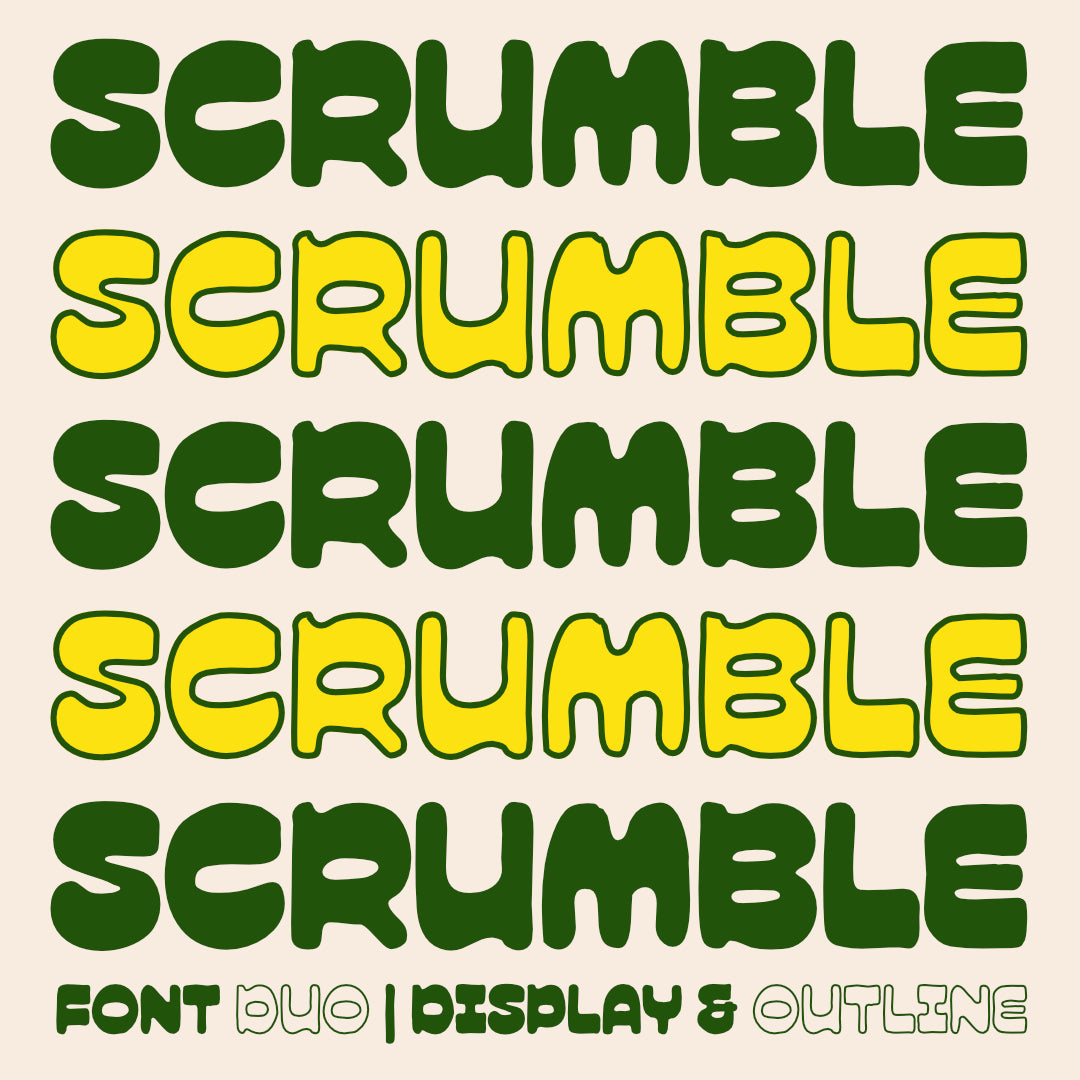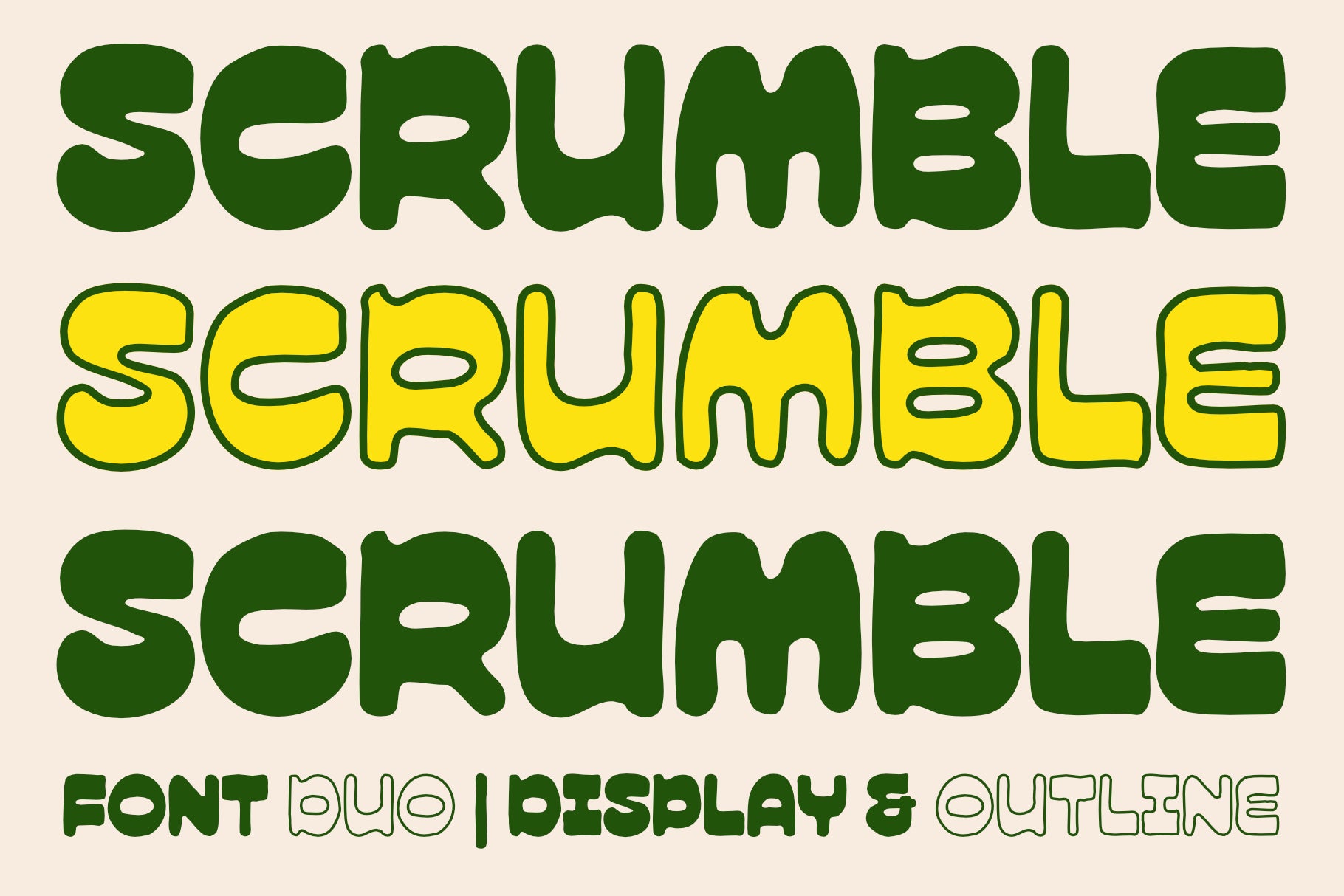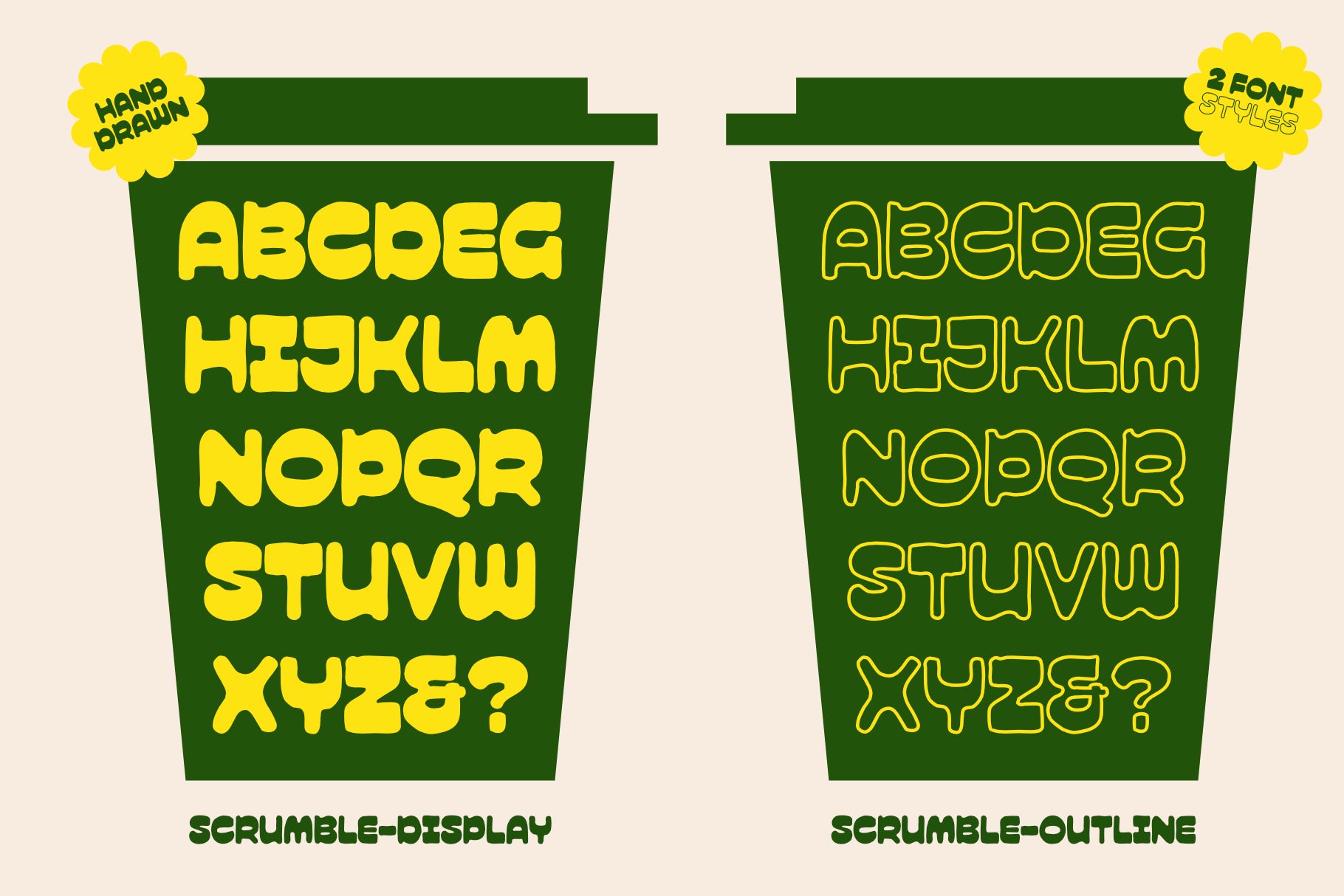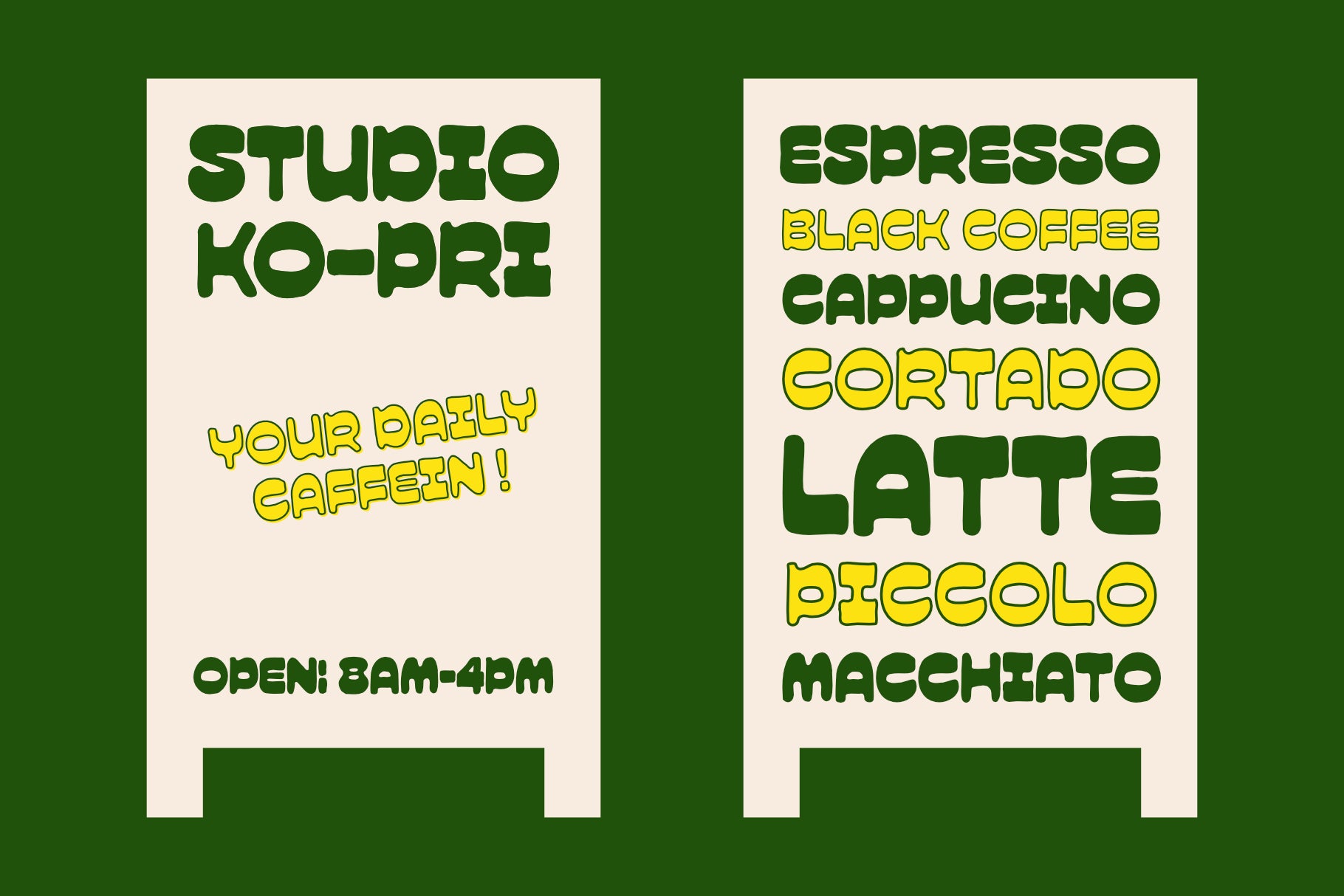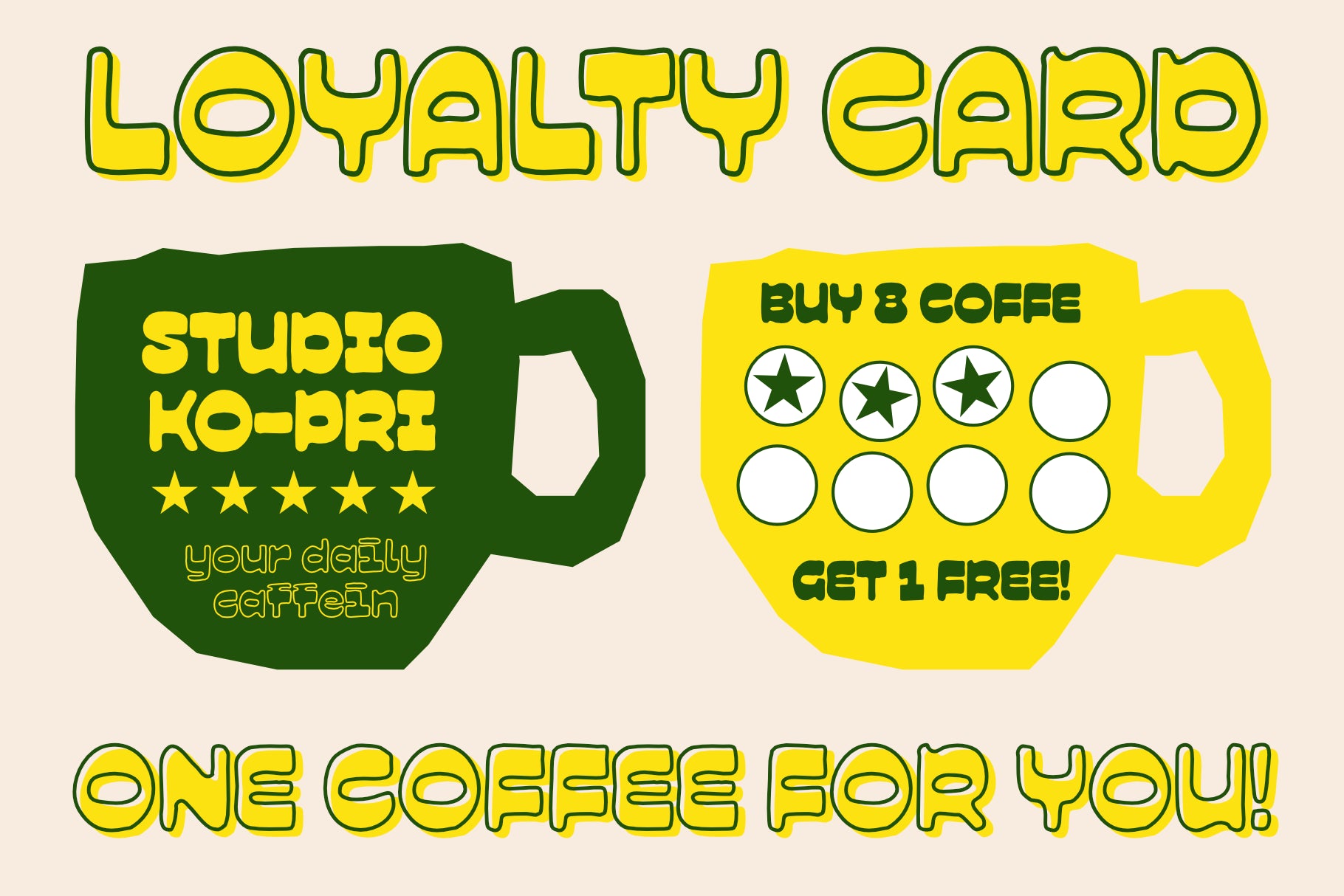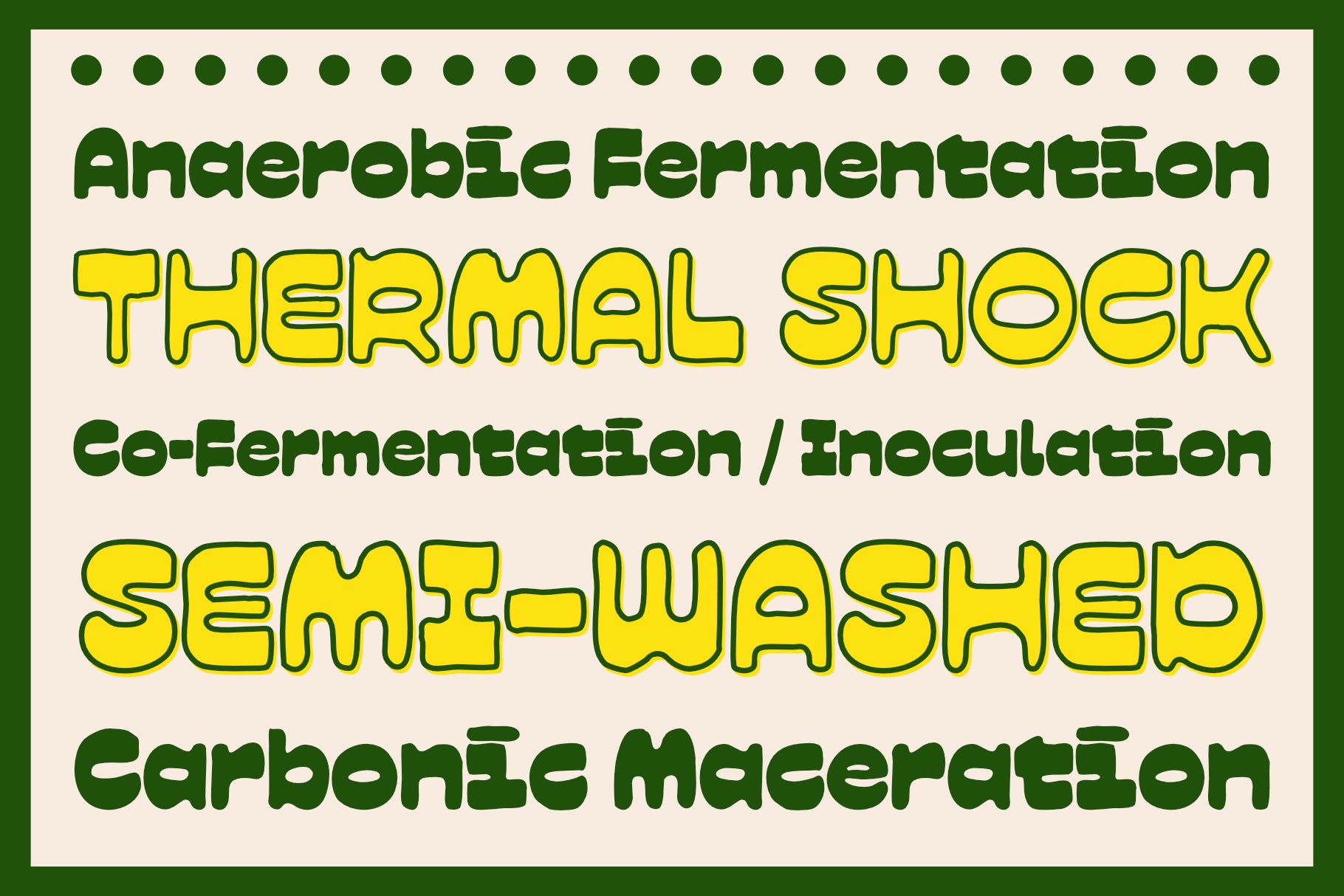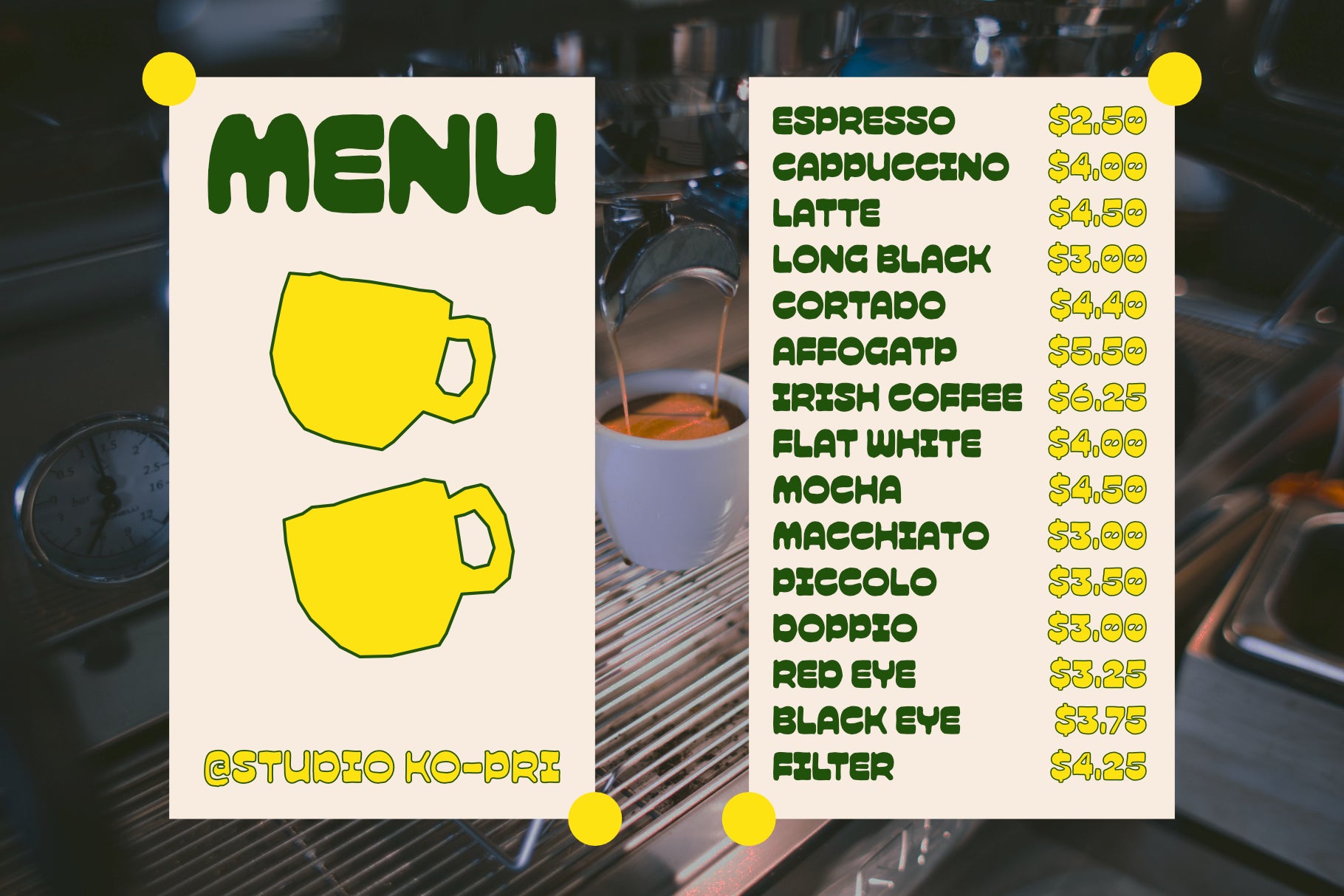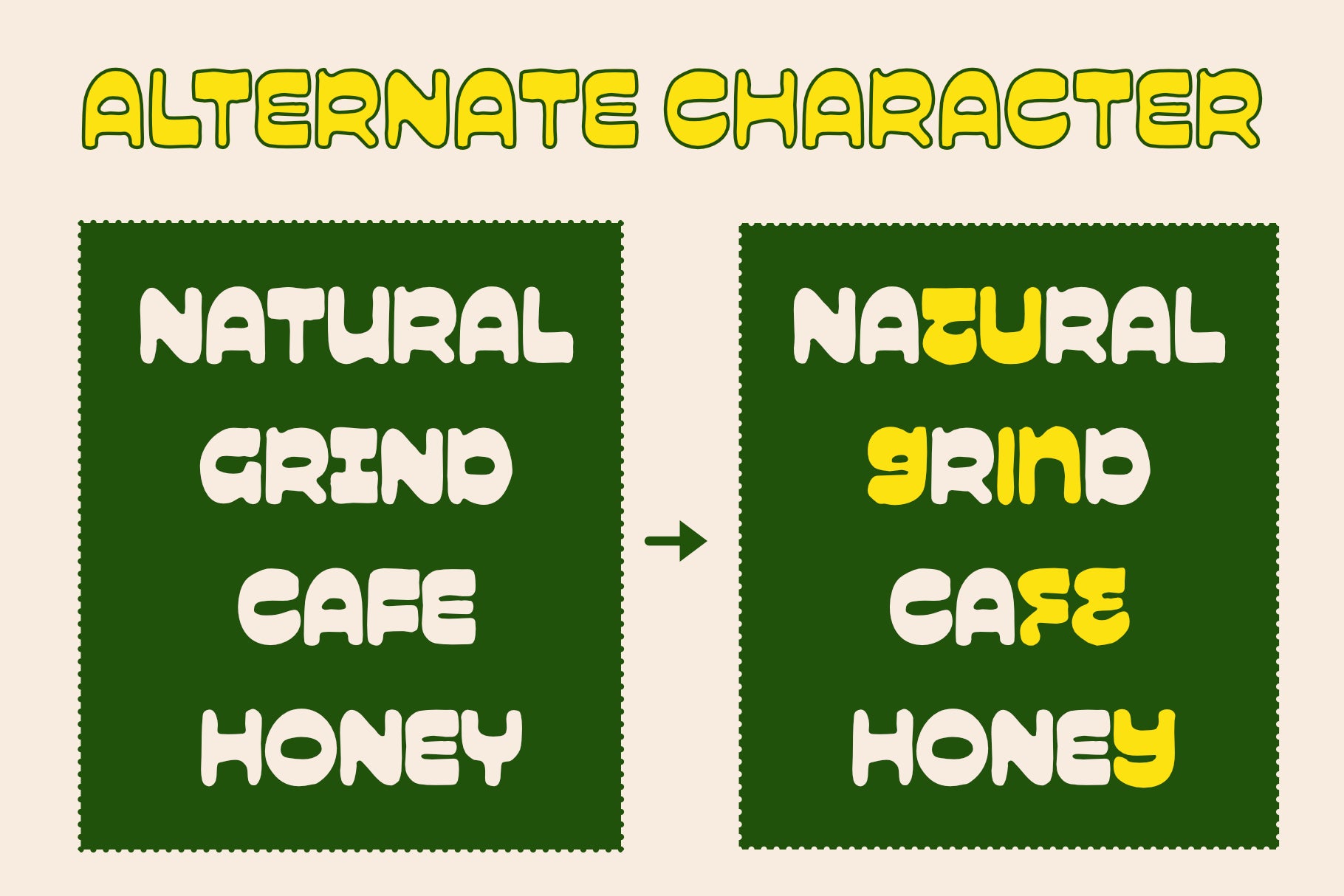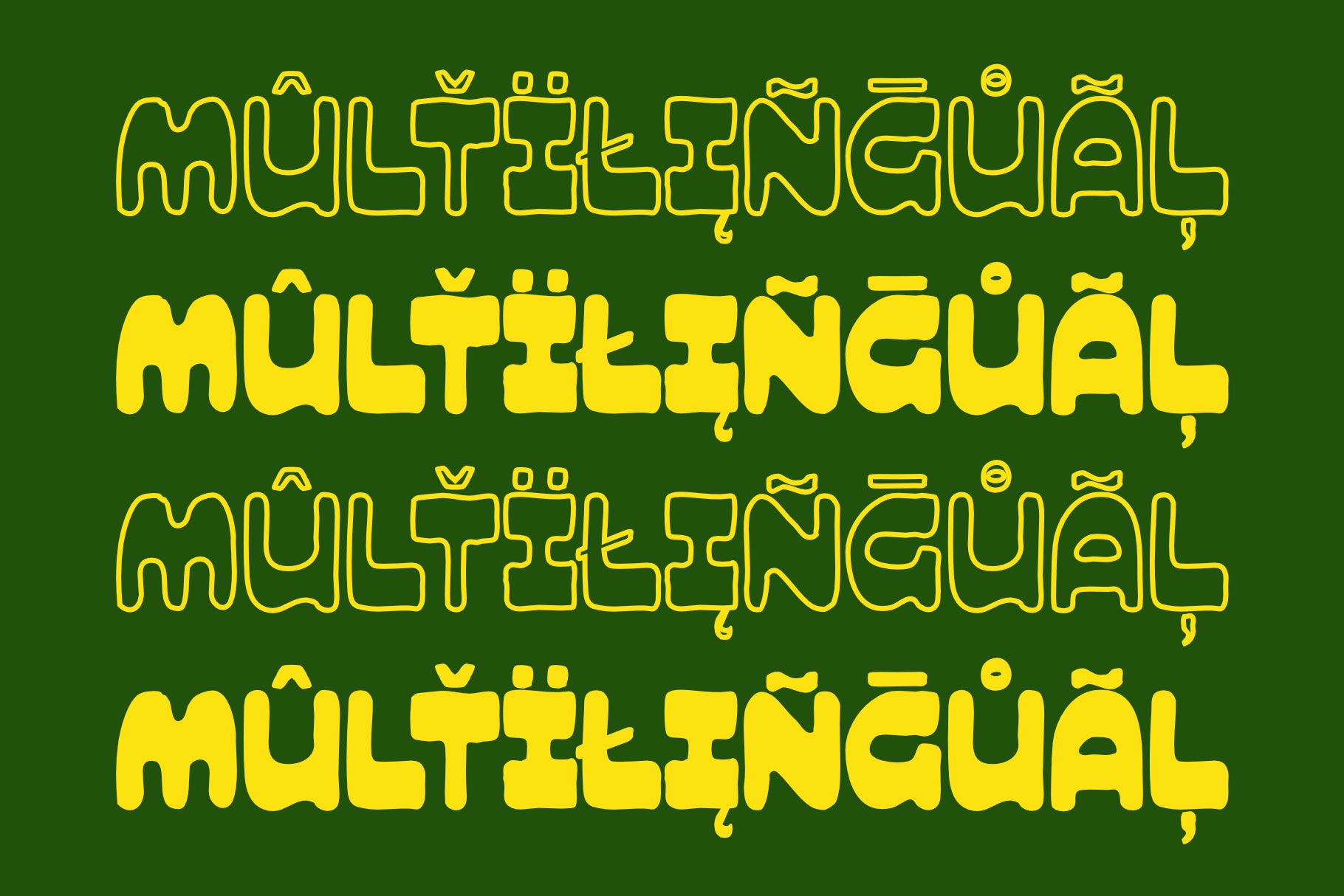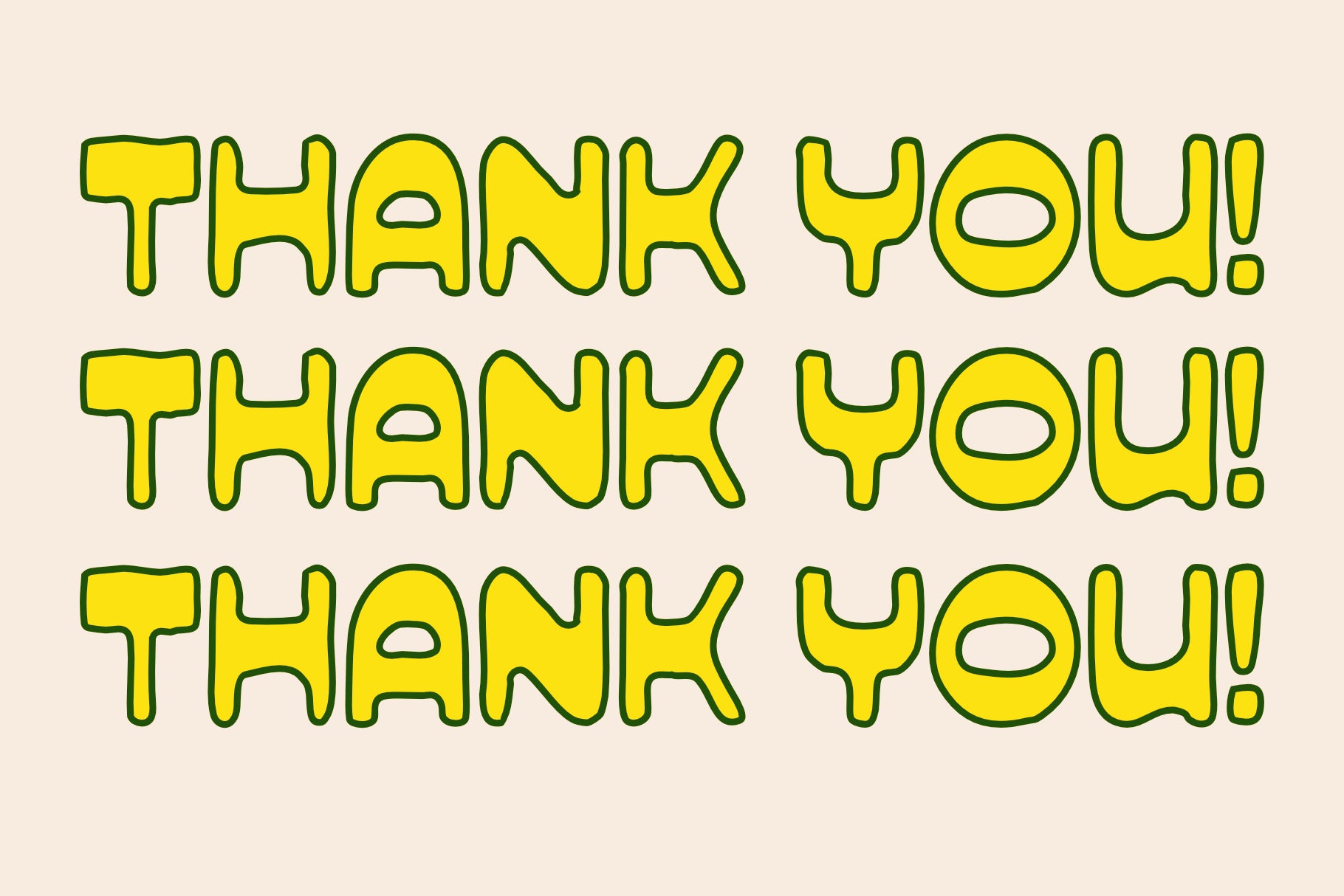
Scrumble – Playful Handrawn Font
Meet Scrumble, a bold hand-drawn display font inspired by cozy coffee shops, vintage packaging, and playful retro signage. Designed with soft rounded corners and organic imperfect curves, Scrumble brings warmth, friendliness, and personality to every design.
Whether you're creating branding for cafés, food packaging, children's products, posters, or social media graphics, Scrumble delivers a cheerful handmade feel that instantly grabs attention.
The family includes two styles—a solid Display version and a matching Outline version—making it easy to create eye-catching layered typography.
Why You'll Love Scrumble
Hand-drawn organic letterforms
Bold, chunky display style
Includes Display & Outline fonts
Uppercase letters
Numbers & punctuation
Multilingual support
Stylistic alternates for a more natural handwritten look
Perfect for layering and colorful typography
Works great for both print and digital projects
Scrumble is a bold hand-drawn display font featuring rounded, organic letterforms in two styles: Display and Outline. It includes uppercase letters, numbers, punctuation, multilingual support, and stylistic alternates.